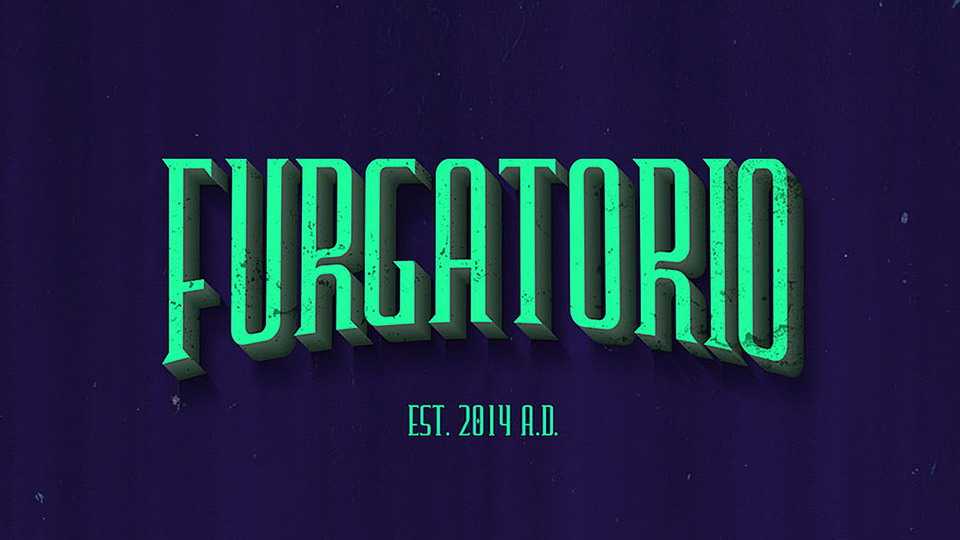
Download Furgatorio font family, a fancy retro typeface in two styles Regular and Titling. Furgatorio font designed for Halloween parties, headlines, posters and other creative projects.
Designer: Aaron Amar